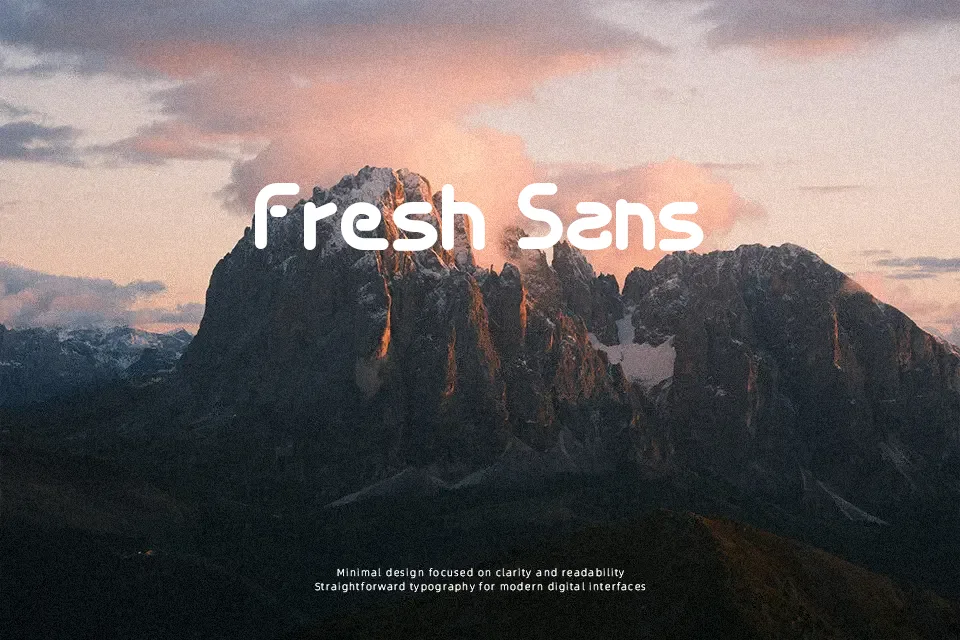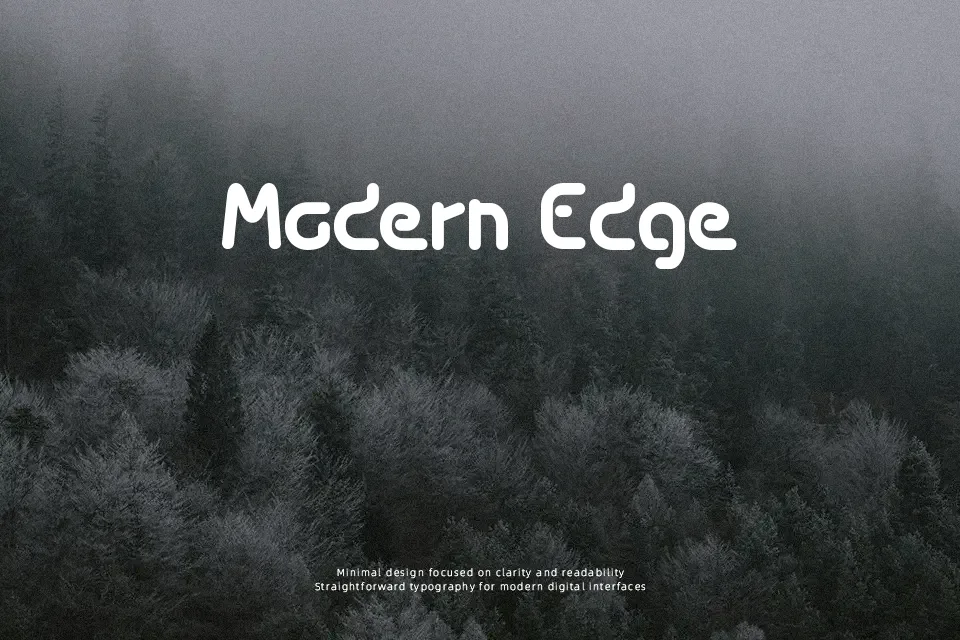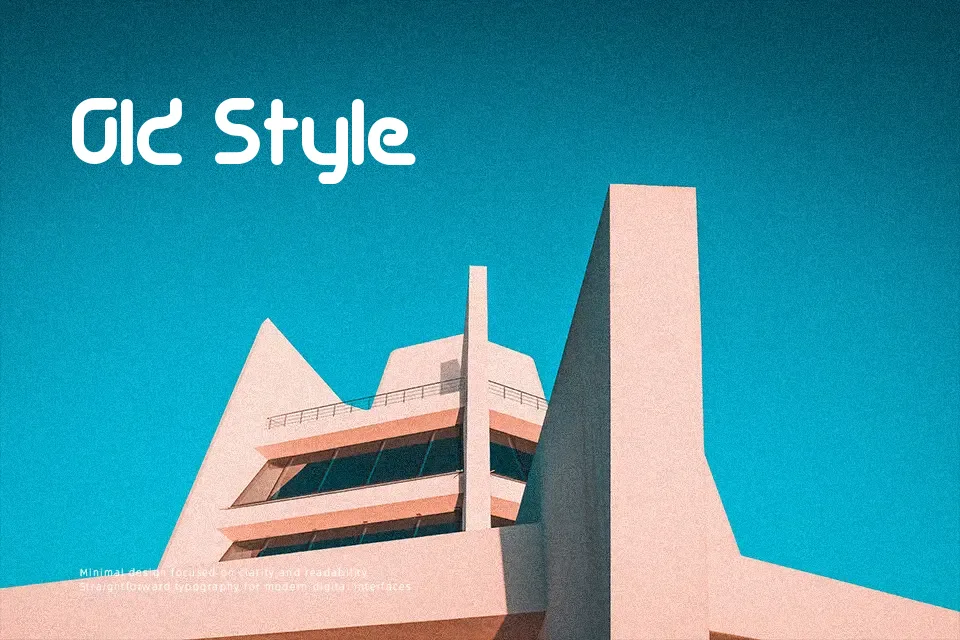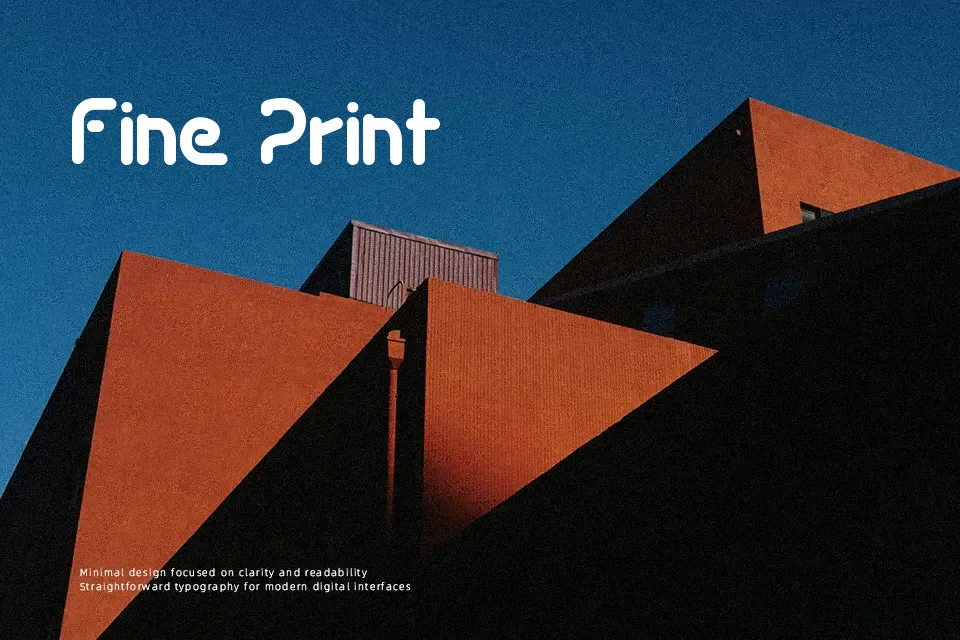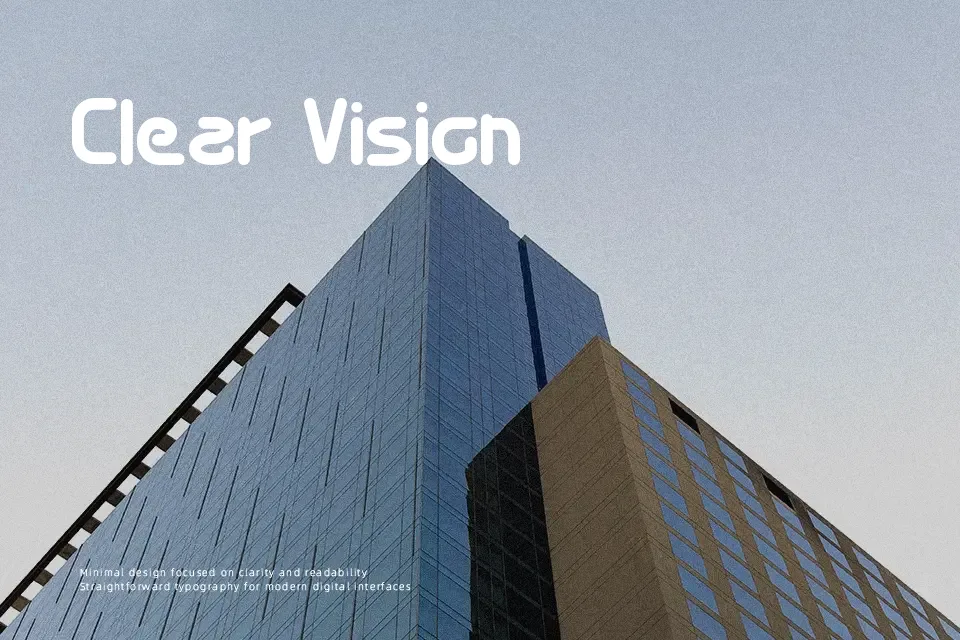
Swish Font
Swish Font uses decorative, flowing forms with pronounced curves and an expressive display-oriented silhouette. The letterforms create a lively rhythm in short words and titles, while their unusual construction gives larger text a more illustrative presence than a conventional sans serif or serif. Spacing appears best suited to isolated lines, names, and compact headline settings rather than dense blocks of copy. At larger sizes, the curved shapes remain the clearest and most useful part of the design. Its ornamented character becomes harder to scan in small text or continuous reading, so it works more reliably as an accent typeface than as a primary text face.
Best For: poster headlines,album titles,apparel graphics,festival signage
Perfect for advertising, headline, and music, with a artistic and decorative style.